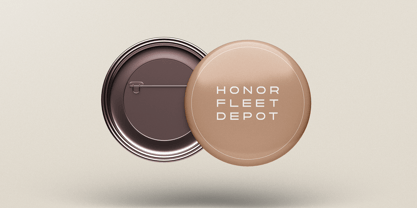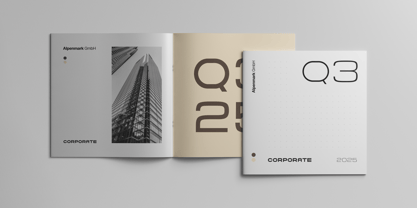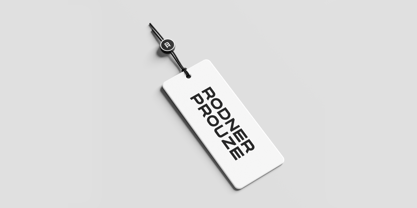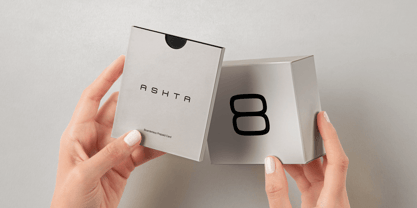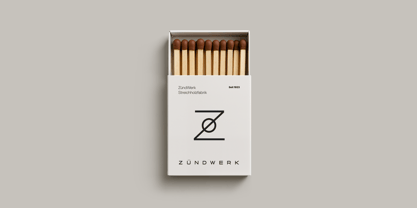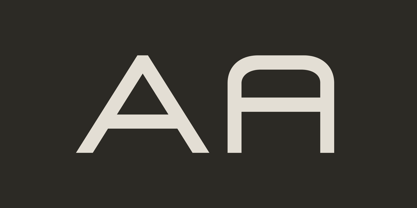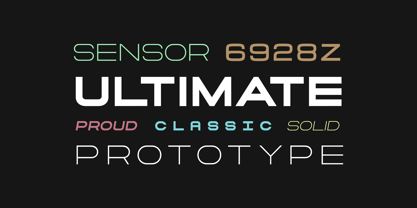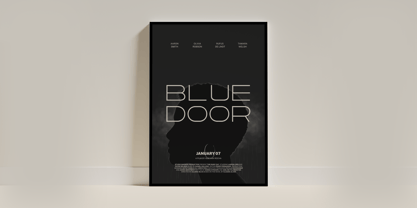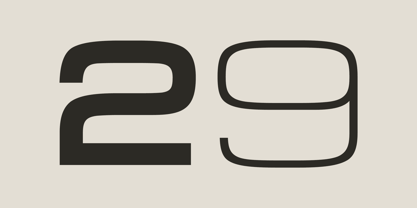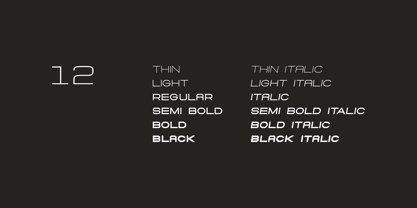
Zero Neue
The Zero Neue Font Family was designed by Jean Johnson and published by Designova. Zero Neue contains 12 styles and family package options. More about this family
ABOUT THE FONT FAMILY: ZERO NEUE is a modern, minimal font family ideal for branding, logotypes, headlines, corporate identities, and marketing materials. It is suitable for both web and print formats. This all-caps typeface features efficient letter spacing options that provide endless possibilities for contemporary and minimalist designs such as logos, headlines, and identities. The versatility of this font family allows for a wide range of modern and minimalist creations. To understand its capabilities in branding and marketing material design, please refer to the included demo graphics. The ZERO NEUE font family consists of 12 fonts, including 6 upright weights: THIN, LIGHT, REGULAR, SEMIBOLD, BOLD, and BLACK, along with italic versions of each weight. Each weight includes extended language support, covering both Western European and Central European character sets, with a total of 346 glyphs included. FEATURES: ZERO NEUE font family includes a collection of 12 fonts in total, with seven upright weights and Italic equivalents of all seven weights as follows: * Thin * Thin Italic * Light * Light Italic * Regular * Italic * SemiBold * SemiBold Italic * Bold * Bold Italic * Black * Black Italic 346 GLYPHS INCLUDED: Handcrafted and designed with powerful OpenType features in mind, each weight includes extended language support with Western European, Central European, and South Eastern European sets. A total of 346 glyphs are available. EXTENSIVE LANGUAGE SUPPORT: Abkhazian • Acehnese • Adangme • Adyghe • Afrikaans • Albanian • Aleut • Angika • Aragonese • Arapaho • Aromanian • Asu • Avaric • Awadhi • Aymara • Balinese • Basque • Bemba • Bena • Bini • Bislama • Buginese • Cajun French • Catalan • Cebuano • Chamorro • Cheyenne • Chiga • Chuukese • Colognian • Comorian • Cornish • Corsican • Dakota • Danish • Dargwa • Dazaga • Dogrib • Dutch • Efik • Ekajuk • Embu • English • Estonian • Fijian • Filipino • Finnish • Fon • French • Friulian • Galician • German • Gilbertese • Gorontalo • Gusii • Gwichʼin • Haitian Creole • Herero • Hiligaynon • Hungarian • Hupa • Iban • Ibibio • Ido • Iloko • Indonesian • Interlingua • Irish • Italian • Javanese • Jju • Kabardian • Kabuverdianu • Kachin • Kalaallisut • Kalenjin • Kalmyk • Kamba • Kanuri • Karachay-Balkar • Karelian • Khasi • Kikuyu • Kimbundu • Kinyarwanda • Klingon • Komi • Koro • Kuanyama • Kumyk • Kurukh • Ladino • Latin • Lezghian • Limburgish • Lojban • Louisiana Creole • Lozi • Luba-Lulua • Lule Sami • Lunda • Luo • Luxembourgish • Luyia • Machame • Madurese • Magahi • Makasar • Makhuwa-Meetto • Makonde • Malagasy • Malay • Manx • Māori • Mari • Marshallese • Mende • Meru • Minangkabau • Mirandese • Mizo • Moksha • Morisyen • Mossi • Nauru • Ndonga • Neapolitan • Newari • Ngambay • Nias • Niuean • Nogai • North Ndebele • Northern Sotho • Norwegian Bokmål • Norwegian Nynorsk • Nyanja • Nyankole • Occitan • Oromo • Palauan • Pampanga • Pangasinan • Papiamento • Portuguese • Rapanui • Rarotongan • Romanian • Romansh • Rombo • Rundi • Rwa • Samburu • Sandawe • Sango • Sangu • Sardinian • Scots • Scottish Gaelic • Sena • Shambala • Shan • Shona • Siksiká • Skolt Sami • Slovenian • Soga • Somali • Soninke • South Ndebele • South Sámi • Southern Altai • Southern Sotho • Spanish • Sranan Tongo • Sukuma • Sundanese • Swahili • Swati • Swedish • Swiss German • Tahitian • Taita • Taroko • Teso • Tetum • Timne • Tok Pisin • Tsonga • Tswana • Tumbuka • Turkmen • Tuvalu • Tuvinian • Udmurt • Umbundu • Vunjo • Walloon • Waray • Welsh • Wolastoqey • Xhosa • Yemba • Zaza • Zulu • Zuni Scripts: Latin